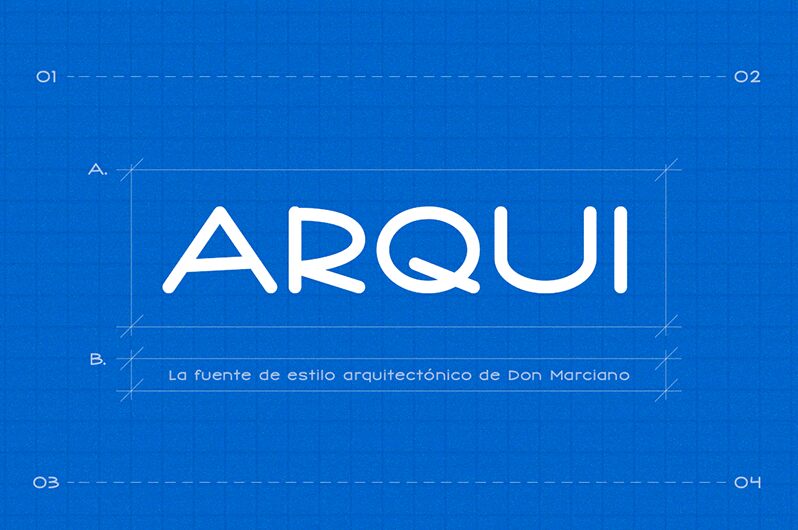
Arqui
Arqui, the latest typeface creation by Juan Miguel Castillo, is a beautiful handwritten font that boasts a light weight and wide width. This font is perfect for an array of projects, from sophisticated wedding invitations and greeting cards to trendy logos and social media graphics. Arqui's expressive curves and unique letterforms will give your designs an authentic, handcrafted feel that is sure to impress. Whether you're looking for something elegant or edgy, Arqui has the versatility to suit any project. So why not elevate your designs with this stunning typography today?
Juan Miguel Castillo